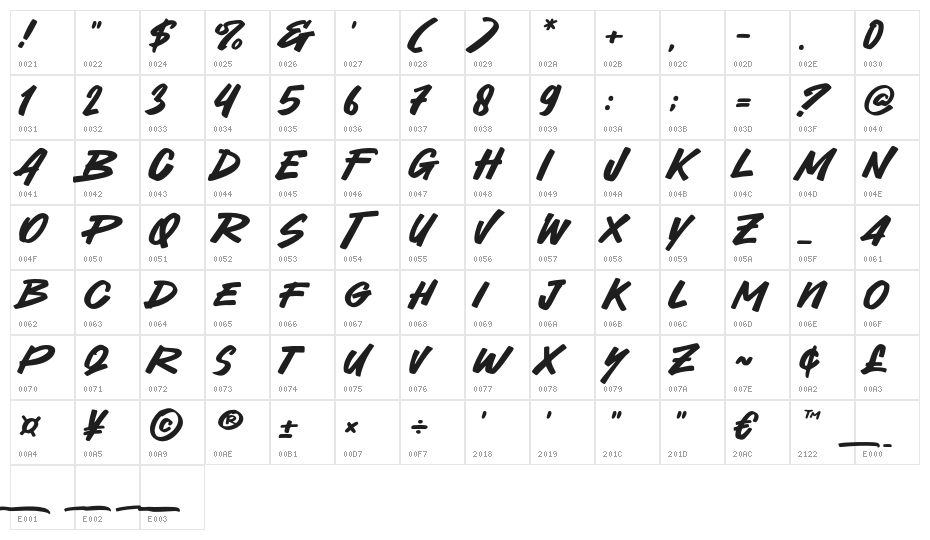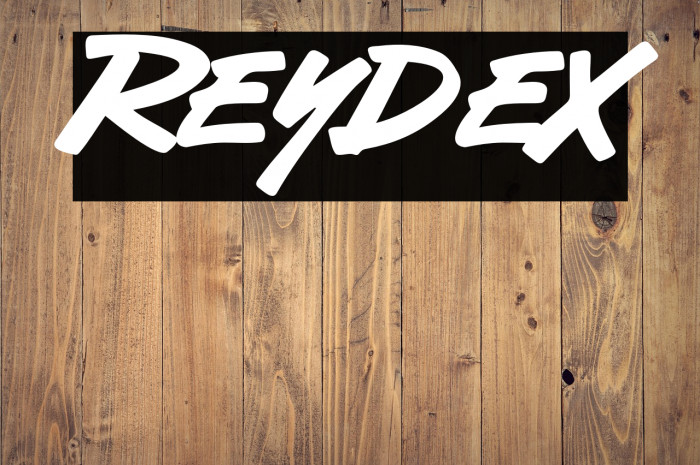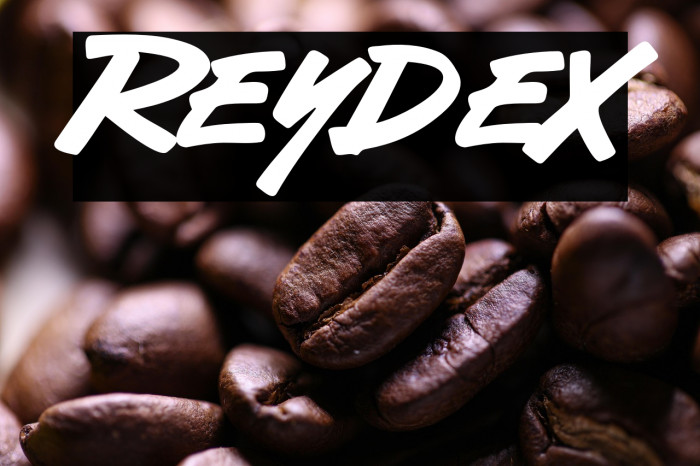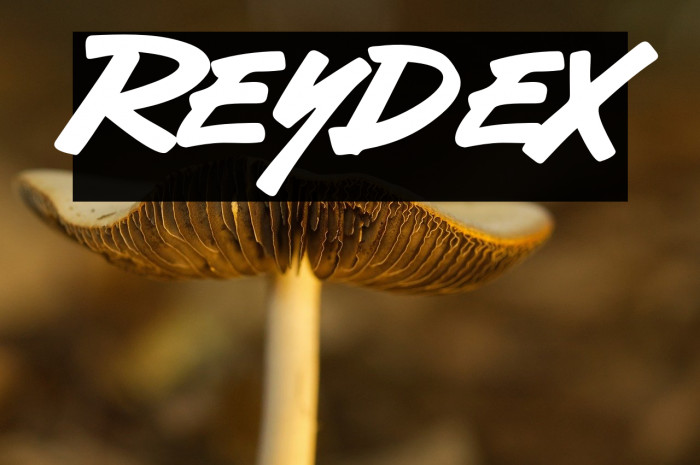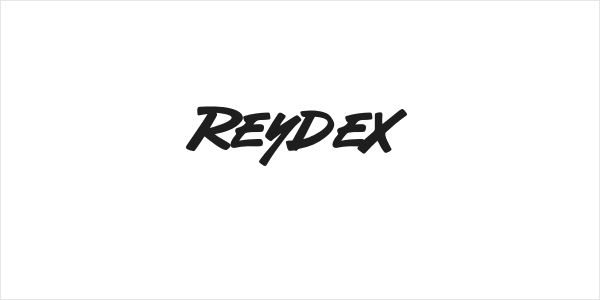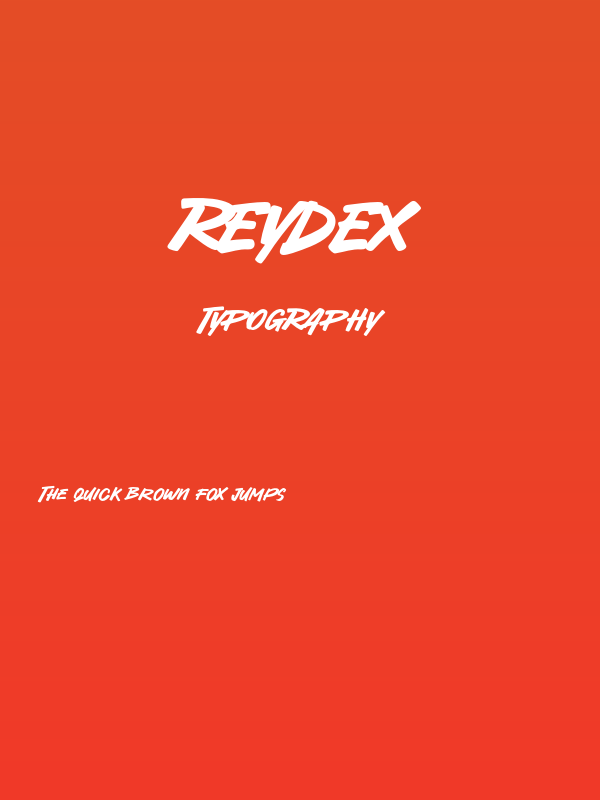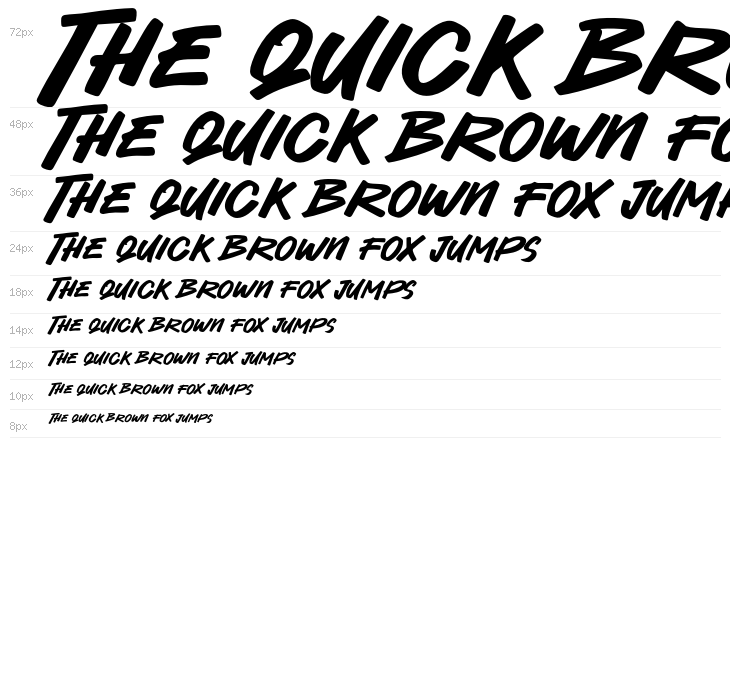
Reydex Font
Reydex Description
This font exhibits a bold, energetic style with a handwritten appearance. The characters are slanted, giving a sense of movement and dynamism. The strokes are thick and consistent, creating a strong visual impact. The uppercase and lowercase letters maintain a cohesive style, with a playful yet assertive character. Numbers and special characters follow the same bold and lively design, making them stand out. The font's overall look is modern and expressive, suitable for projects that require a personal touch or a statement piece.
| Proposed Projects | Ideal for branding, posters, social media graphics, and any project that needs a bold, personal touch. |